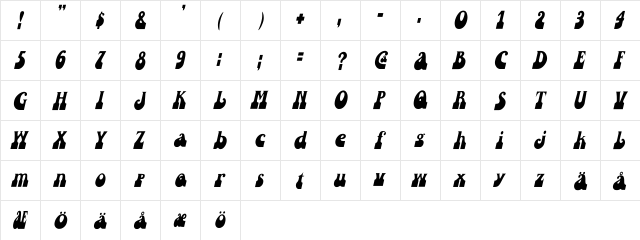
Inkwell Th Italic Italic
Design Context for Inkwell Th Italic Typeface
Inkwell Th Italic is a composed and adaptable typeface that performs quietly and consistently across a wide range of design contexts. The slanted form adds forward momentum and visual energy.
Pro Tip: Use Inkwell Th Italic for emphasis, pull quotes, and subheadings where its slanted energy can add rhythm to the layout.